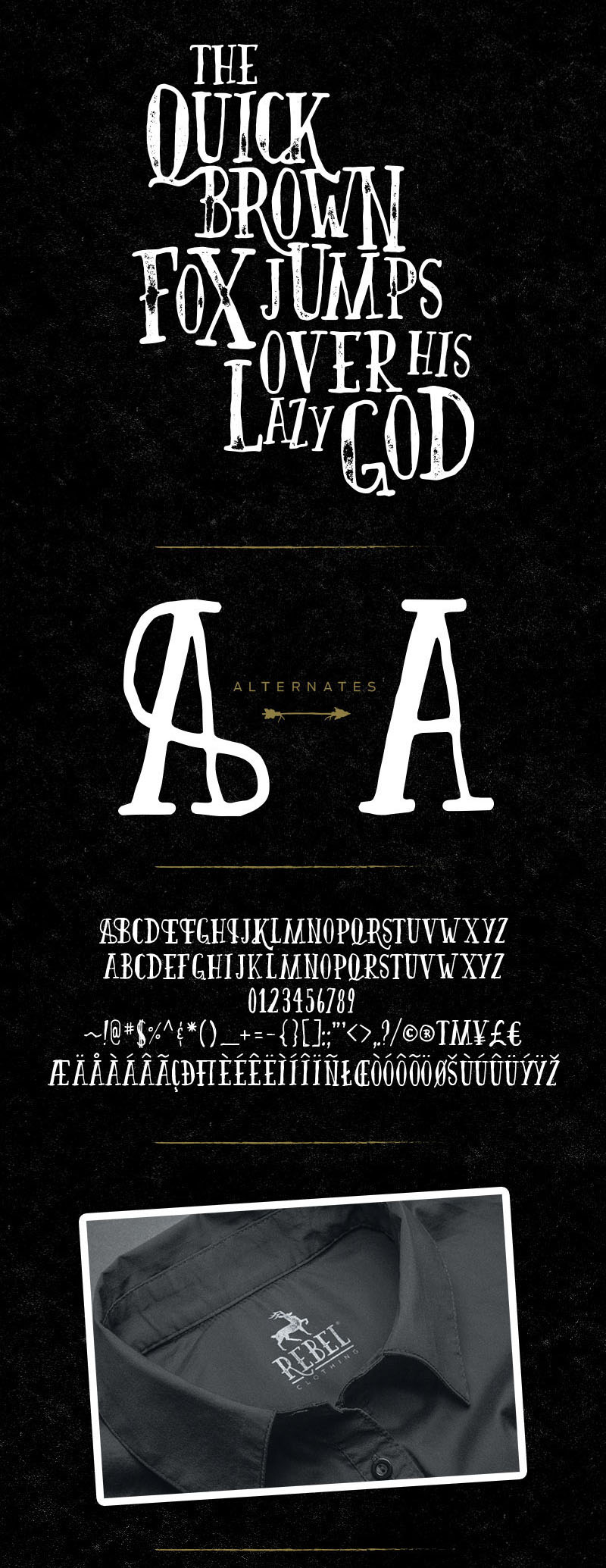
Firefly – Free Hand Drawn Font
This cool hand drawn custom font is from Sean Coady. Brand new hand drawn font that comes with a full set of glyphs as well as a few alternatives. Firefly is a quarky serif with loads of personality & charm. It works great for quotes, logos, posters, headlines, t-shirts and more! So what are you waiting for? Scroll on down to download it 😉